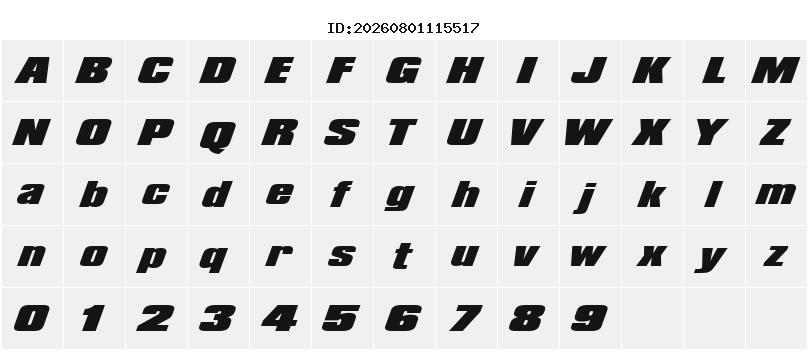
LHF Convecta BASE Preview
• Font Name: LHF Convecta BASE
• Font ID: LHF Convecta BASE
• Full Font Name: LHF Convecta BASE
• PostScript Name: LHFConvectaBASE
About LHF Convecta BASE.ttf
LHF Convecta BASE.ttf is a modern, elegant sans-serif font designed for ultimate readability and visual harmony. Perfect for branding, headlines, web design, and print materials.